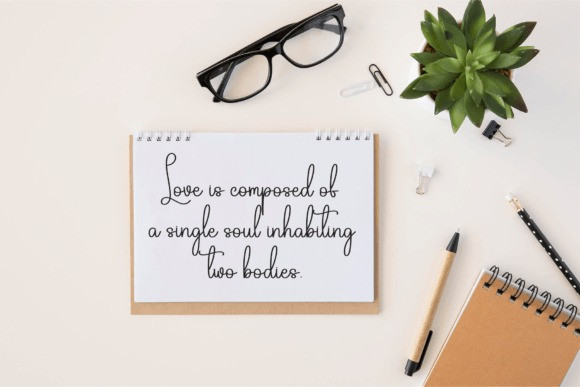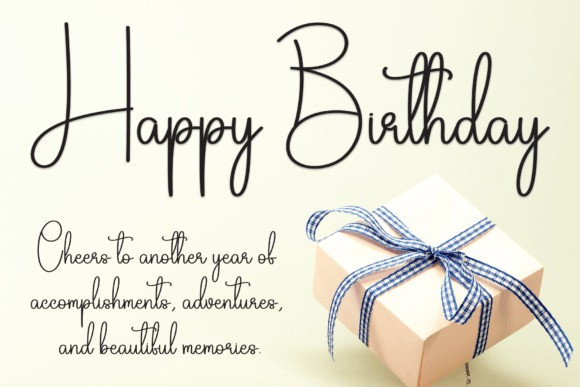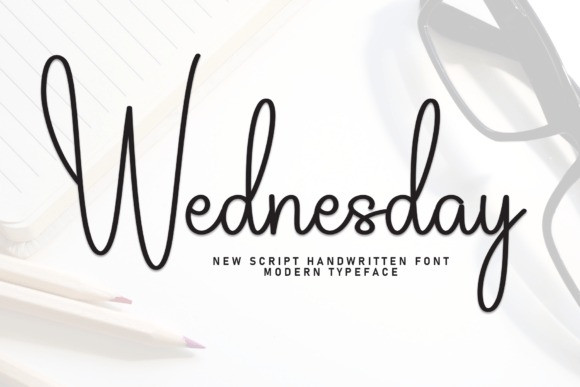
Wednesday Font
Wednesday Font is a stylish and neat handwritten font that exudes sophistication and charm. With its flowing lines and balanced strokes, Wednesday brings an air of elegance to any project. Perfect for invitations, logos, and branding materials, this font adds a touch of grace and refinement to your designs.